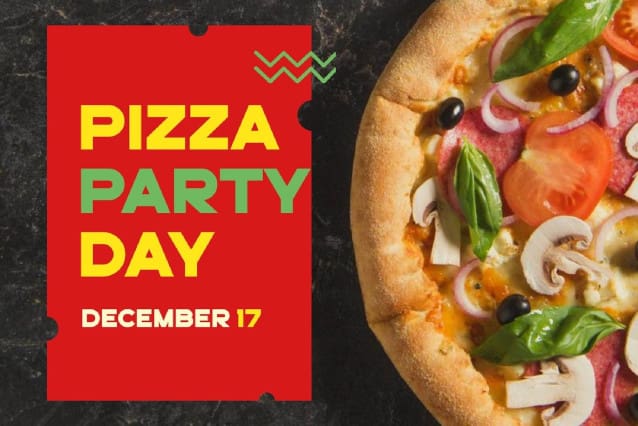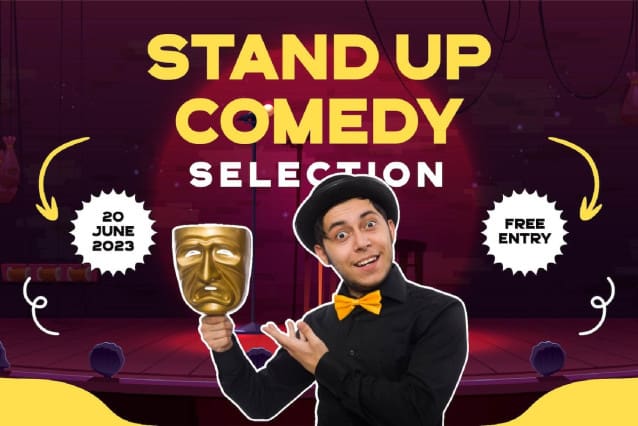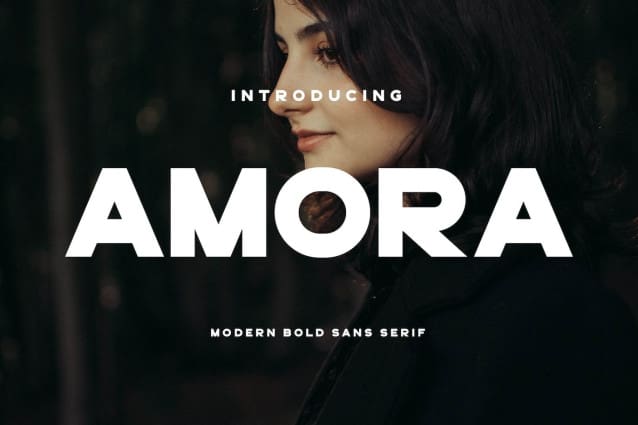
Amora Font
Amora Font inspired by the famous minimalist logo, perfect for designing templates, brochures, videos, advertising branding, logos, invitations, layouts, elegant crafts, beauty design , etc.